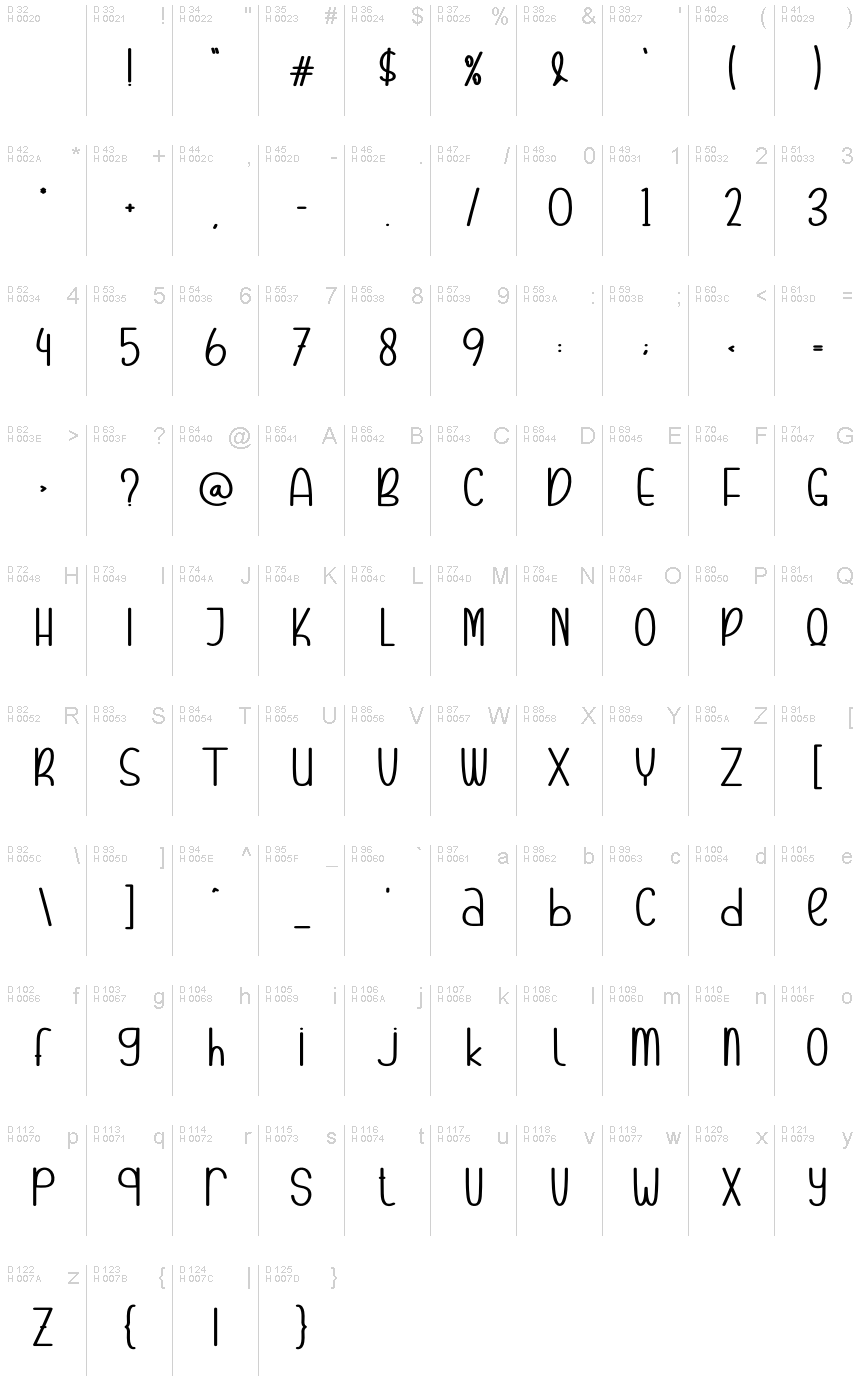
Flower Shoots
Flower Shoots, a charming handwritten font created by Andi Moz, effortlessly captures the essence of organic growth and natural beauty. This condensed display font exudes a sweet, friendly vibe, with delicate strokes that evoke the graceful movement of flower petals. The whimsical character shapes and playful ligatures lend an endearing quality, making Flower Shoots a delightful choice for projects requiring a touch of pure, unadulterated joy.
Flower Shoots' versatility shines through its ability to seamlessly integrate into a variety of design contexts. From elegant wedding invitations to playful stationery, this font adds a touch of sophistication and personality, elevating the overall aesthetic. Its condensed width allows for creative composition, making it an ideal selection for projects where space is at a premium, such as greeting cards or social media graphics.